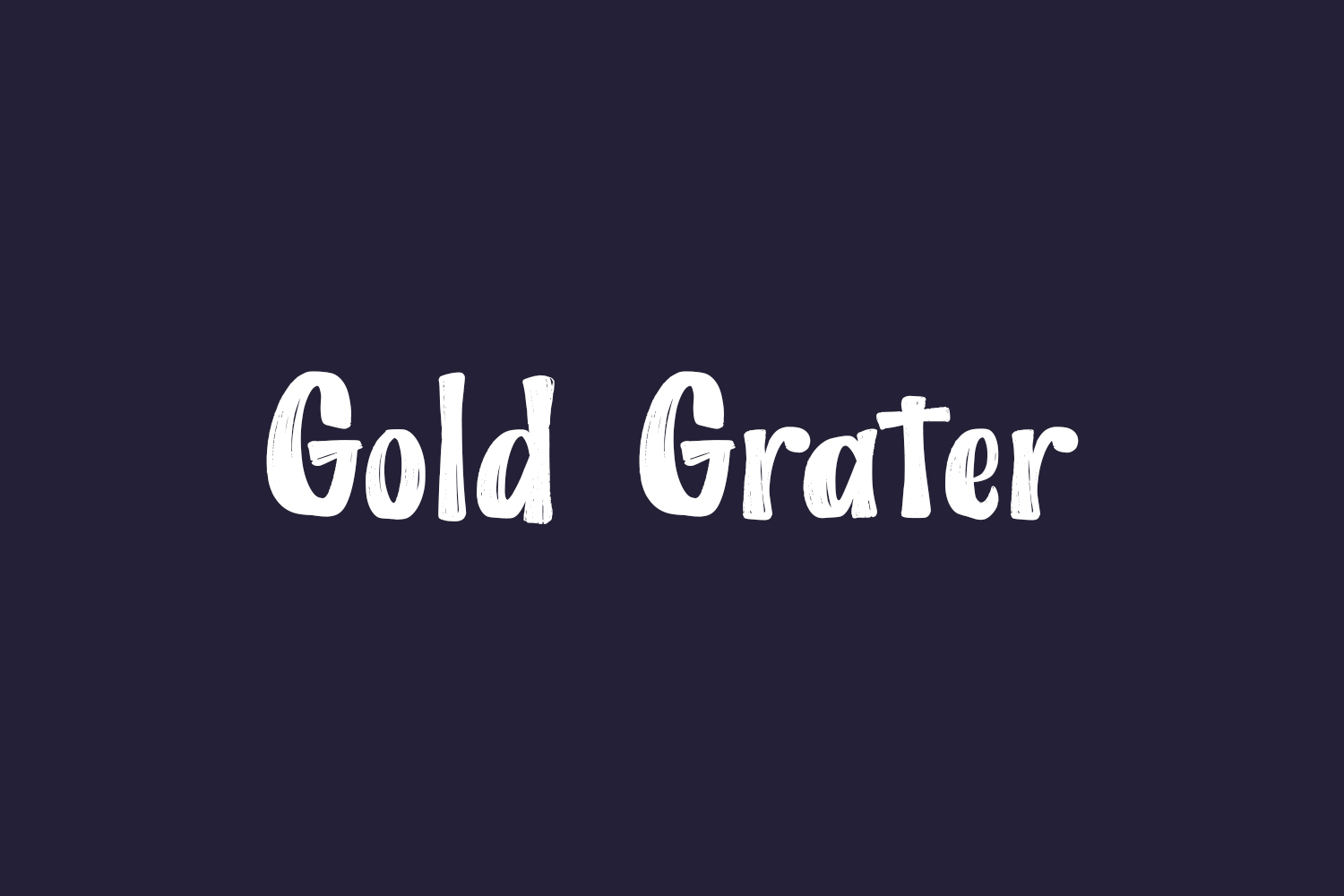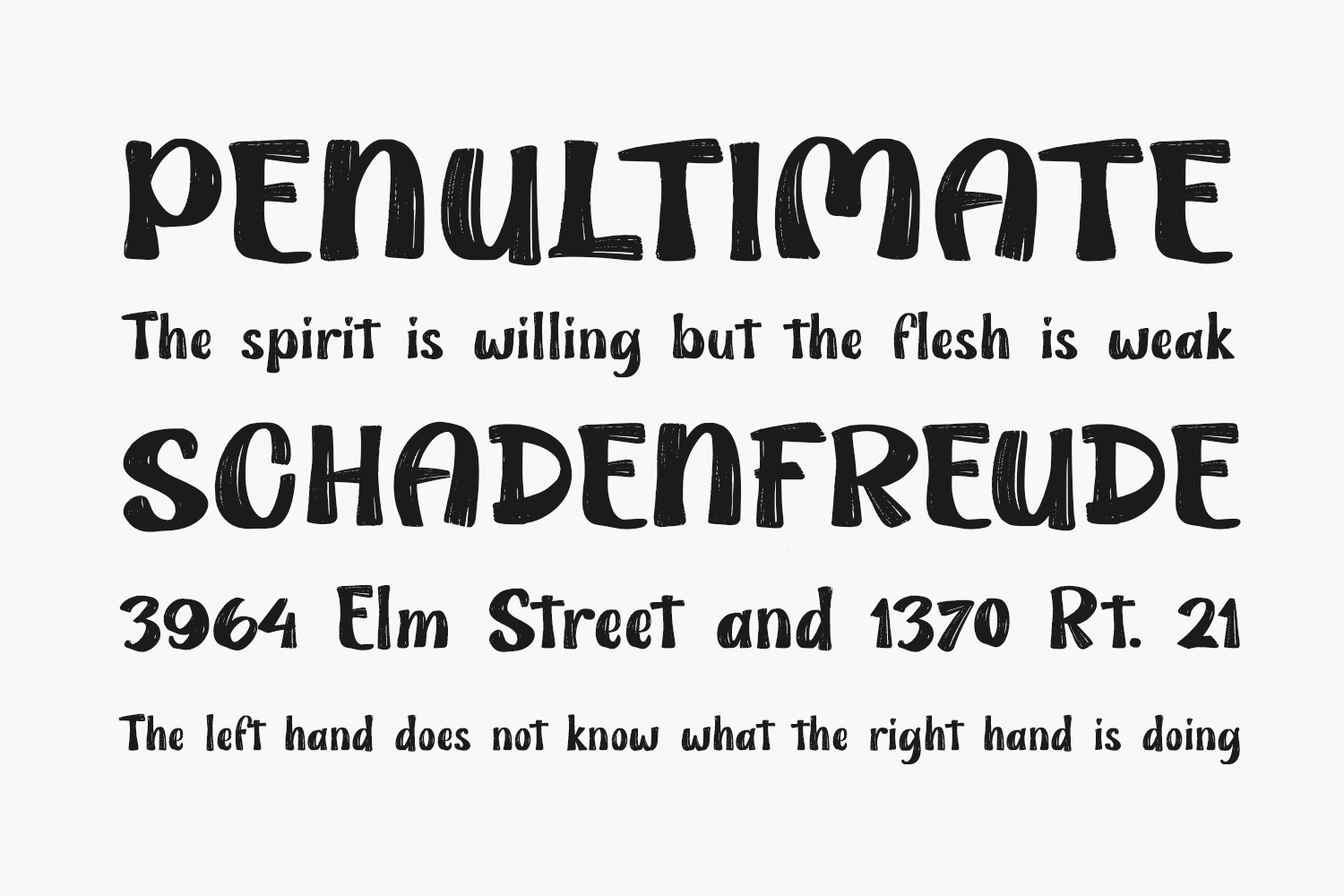
Gold Grater Free Font is a cool, unique and trendy display font. Simple but with a strong visual effect, this font will instantly make your creation more appealing than any others. Gold Grater Free Font is free for personal use only. Please purchase the full version for commercial use.